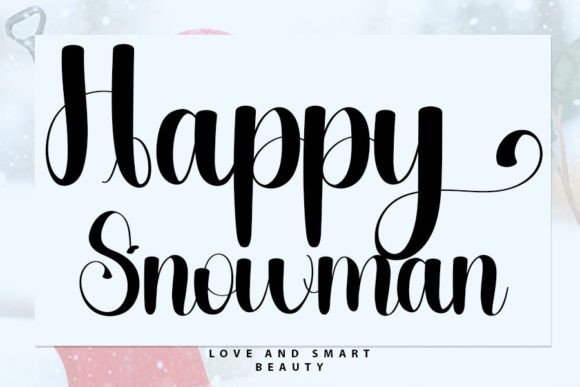
Venture into a whimsical world of enchantment, where letters dance with joy and imagination. Happy Snowman, a captivating handwritten font from FreshTypeINK, awaits your creative touch. Its charming script style, reminiscent of a winter wonderland, breathes life into your projects, transforming them into masterpieces.
Unleash your creativity and let Happy Snowman guide you through a symphony of artistic expression. This versatile font is a maestro of transformation, effortlessly adapting to a diverse orchestra of design projects. From enchanting greeting cards that carry heartfelt messages to captivating headlines that command attention, Happy Snowman plays its part flawlessly.
Picture this: a greeting card adorned with Happy Snowman's playful strokes, carrying a heartfelt message that leaps off the page. Its gentle curves and whimsical loops create an ethereal aura, inviting the recipient to embark on a journey of joy and warmth. The delicate balance of thick and thin strokes, like snowflakes dancing in the wind, adds a touch of elegance and sophistication to your words.
Now, envision a website headline crafted with Happy Snowman's enchanting allure. Its bold presence commands attention, drawing visitors into the depths of your digital realm. The flowing characters, like ribbons of laughter, create a sense of intrigue and excitement, compelling readers to delve deeper into your content. Happy Snowman's magical touch transforms ordinary words into extraordinary invitations, promising an immersive and captivating experience.
But there's more to Happy Snowman than its captivating aesthetics. Its versatility extends far beyond the realm of greeting cards and headlines. Let your imagination soar as you explore its boundless potential. Design posters that burst with energy and vibrancy, evoking a sense of wonder and enchantment. Create social media posts that sparkle with personality, capturing the attention of your audience and leaving them craving more.
With Happy Snowman as your artistic muse, you'll discover a new dimension of creative freedom. Its ability to evoke emotions and create lasting impressions makes it the perfect choice for any project that seeks to enchant and captivate. Embrace the magic of Happy Snowman and let your designs dance with joy and imagination.